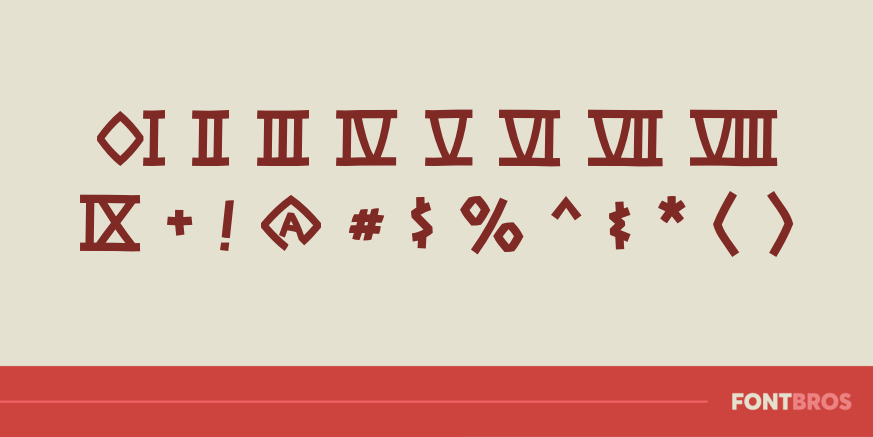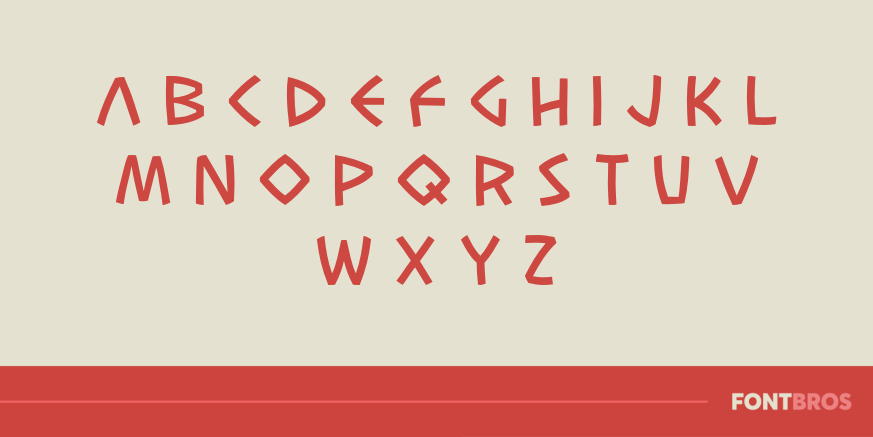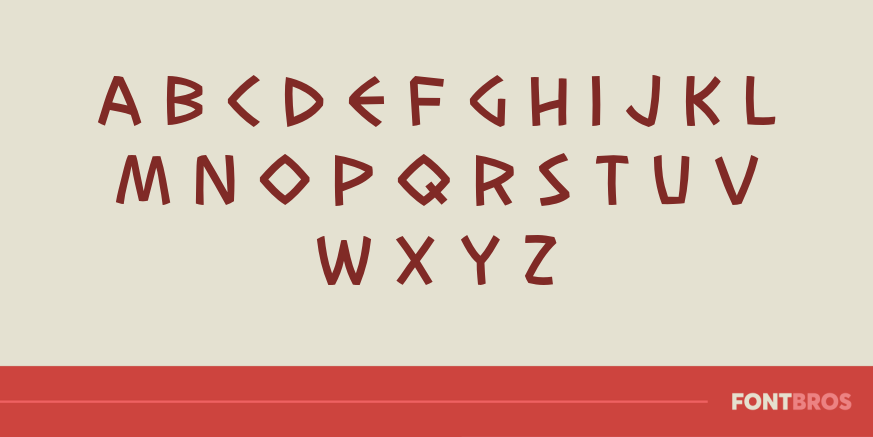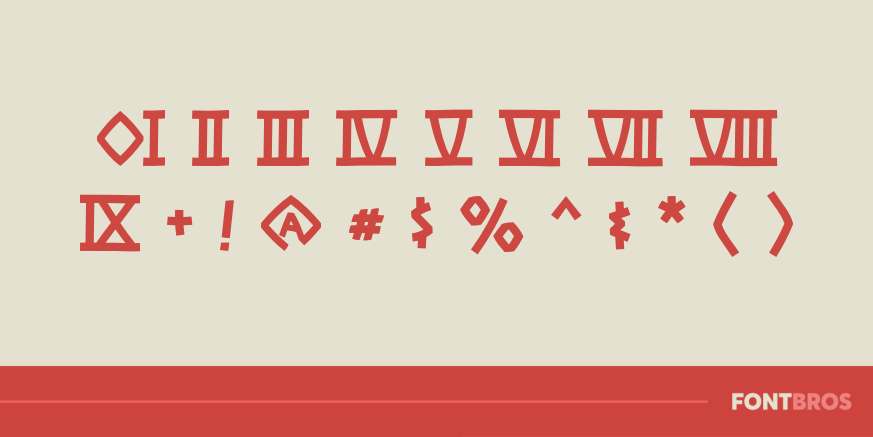
Las Vegas to Rome
Font Family by Font Diner
Great Ceasar's Ghost! It's Las Vegas to Rome! Slip into your favorite toga and get ready to gamble the night away!